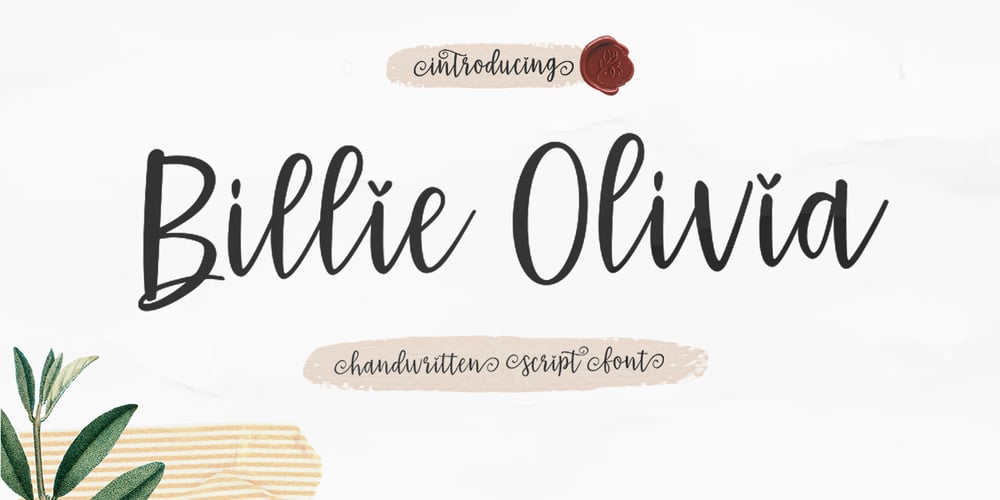
Billie Olivia Font Family was designed by Naufal Paramata and published by Youngtype. Billie Olivia contains 1 styles and family package options. Billie Olivia – Handwritten Typefaces is a hand brushed font created with a brush and ink, bold and irregular baseline. Contains a complete set of lowercase, uppercase, Alternates, ligatures, punctuation, numbers, and multilingual support.This font ideal for use in watercolor design or lettering style bold hand, such as blog header, posters, wedding elements, t-shirt, apparel, cover books, business cards, greeting cards, branding, merchandise, invitations and handmade quotes and more.How to access all alternative characters, using Windows Character Map with Photoshop:https://www.youtube.com/watch?v=Go9vacoYmBwHow to access all alternative characters using Adobe Illustrator:https://www.youtube.com/watch?v=XzwjMkbB-wQThank you!